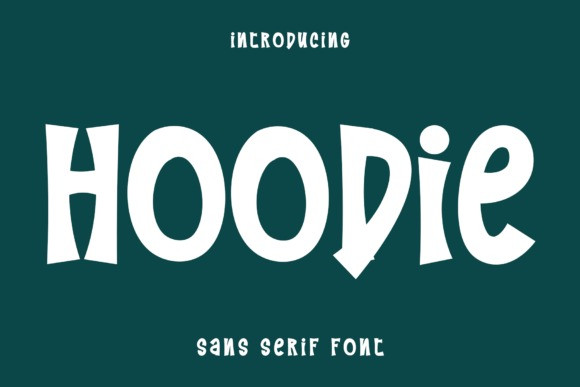
Hoodie Display Font
Hoodie Display Font a playful sans-serif font designed for modern, youth-centric impact. This typeface features irregular, geometric letterforms with a “street-smart-casual” soul, blending quirky cutouts with a bold, chunky silhouette that mimics hand-cut paper art. With its eccentric rhythm and approachable weight, Hoodie is the premier choice for independent streetwear branding, alternative youth magazine titles, boutique sticker designs, and engaging “urban-creative” social media headers.